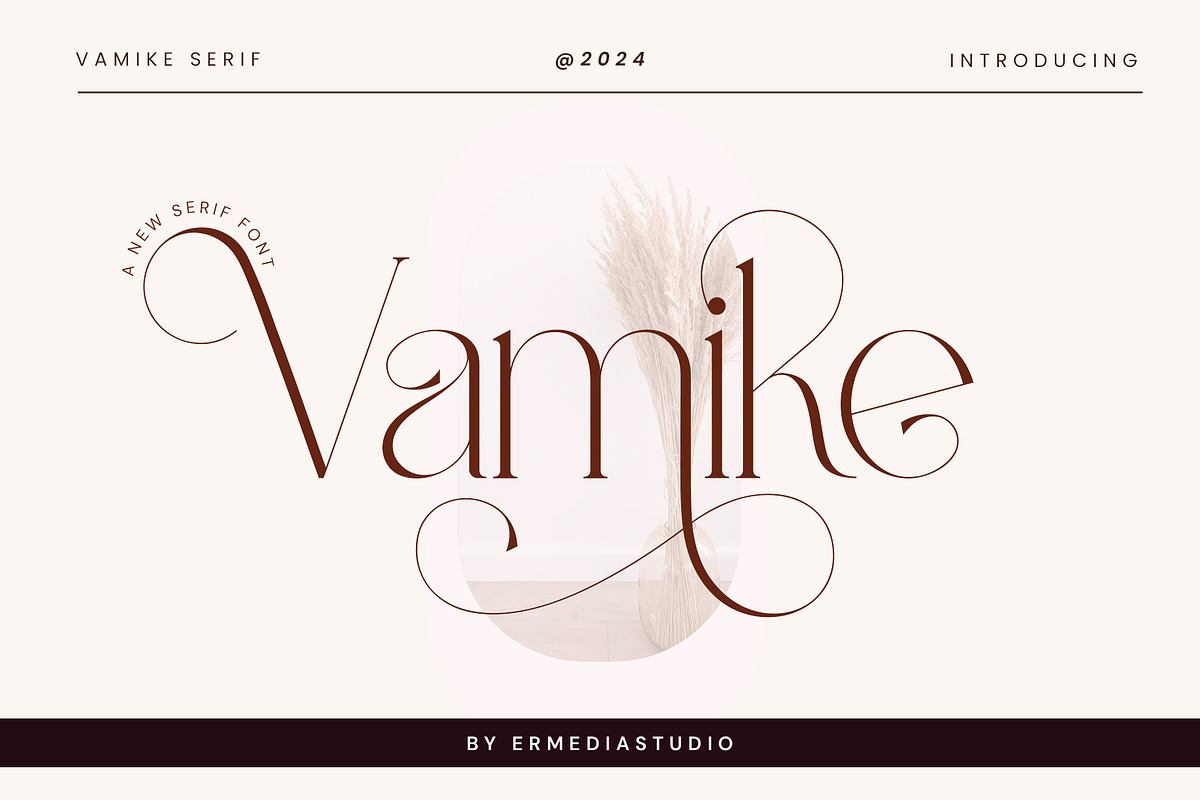
Elevate your designs with classic sophistication using Vamike Serif Font Free Download. This modern serif typeface blends timeless elegance with a bold, contemporary edge—perfect for branding, editorial layouts, fashion design, packaging, and upscale digital content.
Vamike features clean lines, refined serifs, and high-contrast strokes that give it a luxurious, polished feel. It includes uppercase and lowercase letters, numerals, punctuation, and stylish alternates—making it ideal for testing both minimalist and expressive design directions.
Whether you're crafting a logo or magazine spread, this font delivers professionalism with personality. For commercial use, make sure to purchase the proper license. Download Vamike Serif Font Free Download today and infuse your projects with elevated, timeless style.